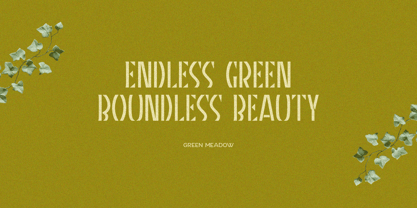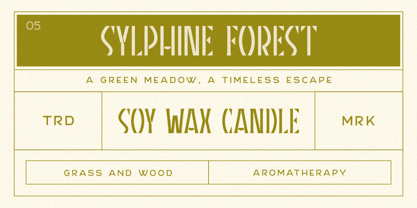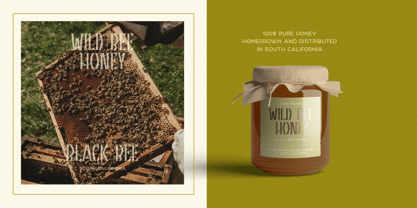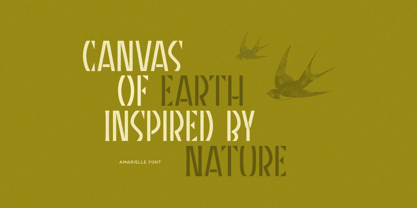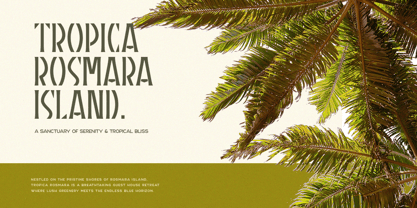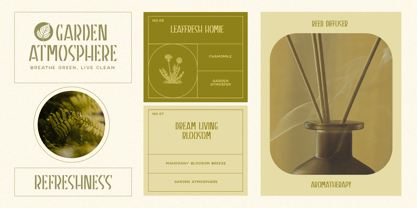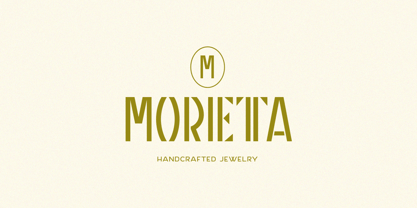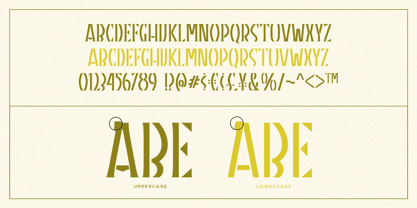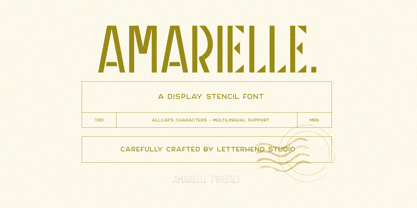
Amarielle
by Letterhend
The Amarielle Font Family was designed by Hendry Juanda and published by Letterhend. Amarielle contains 2 styles and family package options. More about this family
AMARIELLE is a modern stencil display font designed for those who dare to stand out. With its sharp edges, industrial aesthetics, and military-inspired precision, this all-caps typeface delivers a strong, commanding presence. Perfect for branding, posters, editorial design, labels, signage, and high-impact visuals, Amariellle blends urban grit with contemporary elegance. Its multilingual support and versatility make it ideal for projects that demand a clean yet rugged typographic style. Features : Uppercase & lowercase Numbers and punctuation Multilingual Support PUA encoded